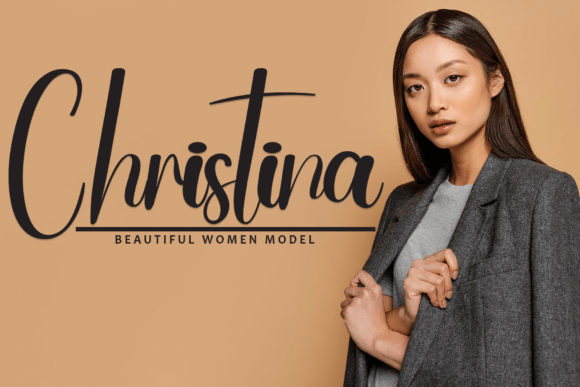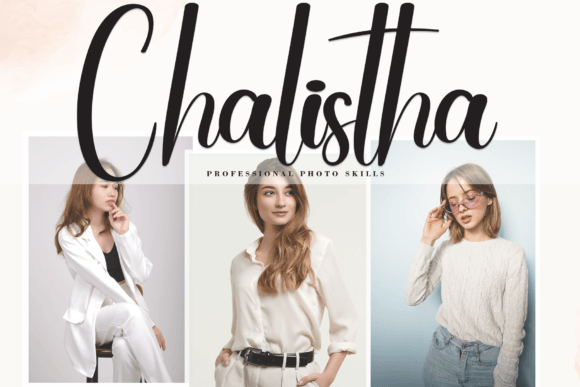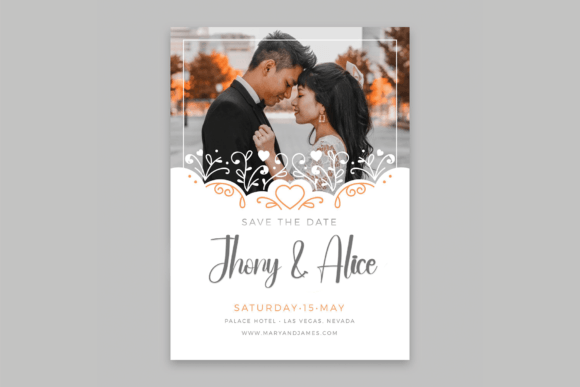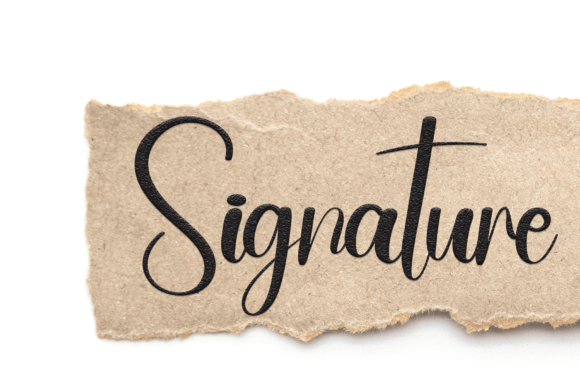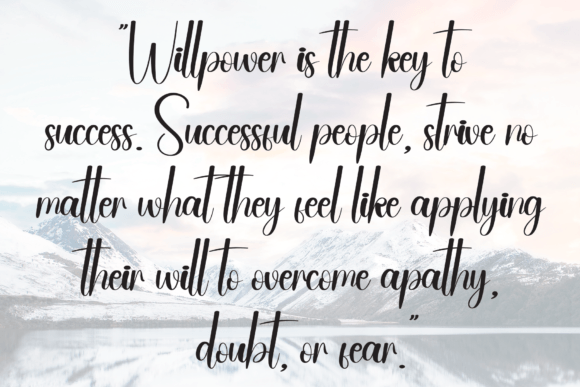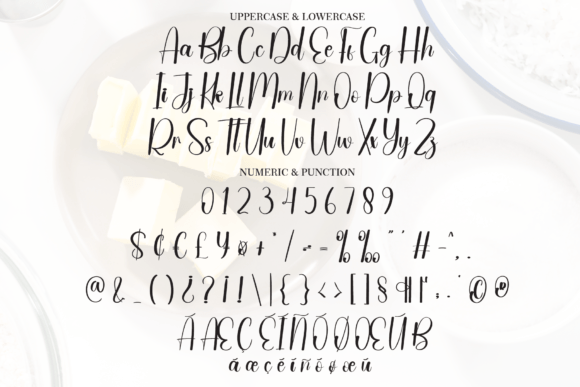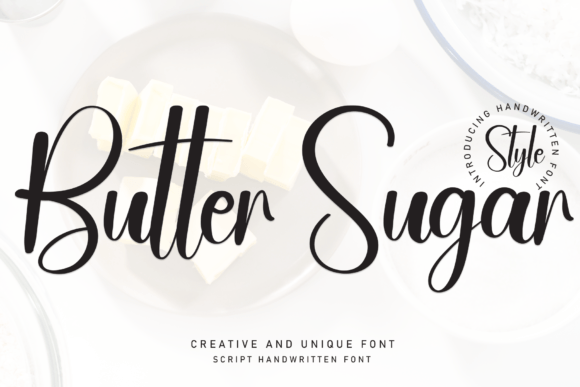
The Sweet Spot: Discovering the Charm of Butter Sugar Font
I’ll never forget the time I was working on a wedding invitation project, and my client asked for a font that was “sweet, friendly, and playful.” I scoured the internet, tried out dozens of fonts, but nothing seemed quite right. That was until I stumbled upon Butter Sugar Font. It was love at first sight! ✨ This beautiful, handwritten font has been a game-changer for my designs, and I’m excited to share its charm with you.
So, what makes Butter Sugar Font so special? Here are a few things I love:
• ✨ Fresh and neat: This font has a lovely, clean feel that’s perfect for a wide range of design projects.
• ✅ Highly legible: Even at smaller sizes, Butter Sugar Font remains easy to read, making it ideal for body text or captions.
• 💕 Sweet and friendly: The handwritten style gives this font a warm, approachable feel that’s perfect for wedding invitations, greeting cards, or any other design that needs a personal touch.
Of course, no font is perfect, and Butter Sugar has a few small quirks:
• ⚠️ Limited language support: While the font covers the basic Latin character set, it may not be suitable for designs that require more extensive language support.
• 🤔 Occasional kerning issues: As with any font, you may need to adjust kerning manually to achieve optimal results, especially when using all-caps or mixing with other fonts.
3. Experiment with OpenType features like ligatures and stylistic alternates to add visual interest to your design.
3. Explore the various glyphs, ligatures, and stylistic alternates to add a personal touch to your design.
The Story Behind Butter Sugar Font
Butter Sugar Font was designed with love by a talented type designer who wanted to create a font that would bring a smile to people’s faces. With its sweet, friendly feel, it’s no wonder this font has become a favorite among designers and crafters.
What is the best use for Butter Sugar Font? Butter Sugar Font is perfect for designs that require a sweet, friendly touch, such as wedding invitations, greeting cards, or children’s books.
Is Butter Sugar Font suitable for body text? Yes, Butter Sugar Font is highly legible and can be used for body text, especially at larger sizes.
Does Butter Sugar Font support multiple languages? Butter Sugar Font covers the basic Latin character set, but may not support more extensive language requirements.